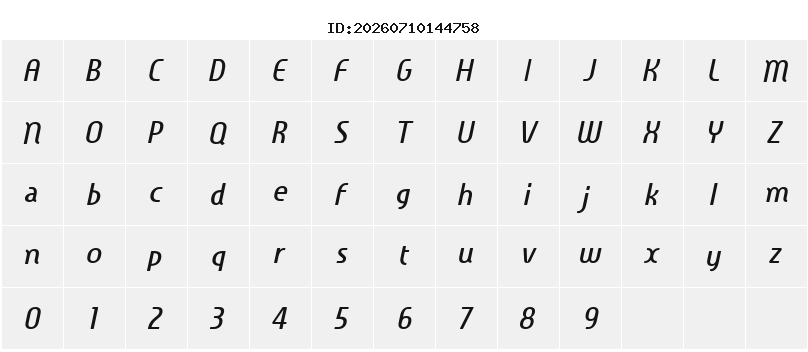
Familian Elder Oblique Preview
• Font Name: Familian Elder Oblique
• Font ID: Macromedia Fontographer 4.1J Familian Elder Oblique
• Full Font Name: Familian Elder Oblique
• Version: Macromedia Fontographer 4.1J 06.7.16
• PostScript Name: FamilianElderOblique
• Character Count: 252
About Familian Elder Oblique.ttf
Familian Elder Oblique.ttf is a modern, elegant sans-serif font designed for ultimate readability and visual harmony. Perfect for branding, headlines, web design, and print materials.